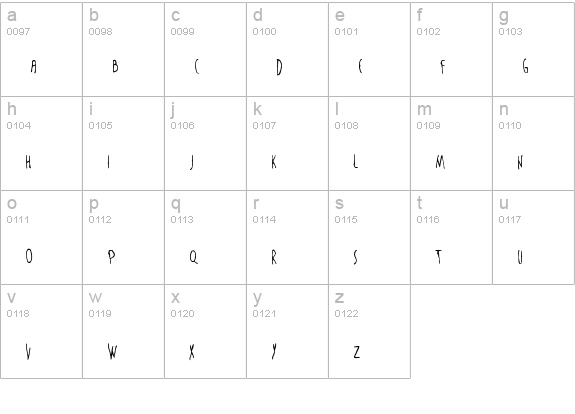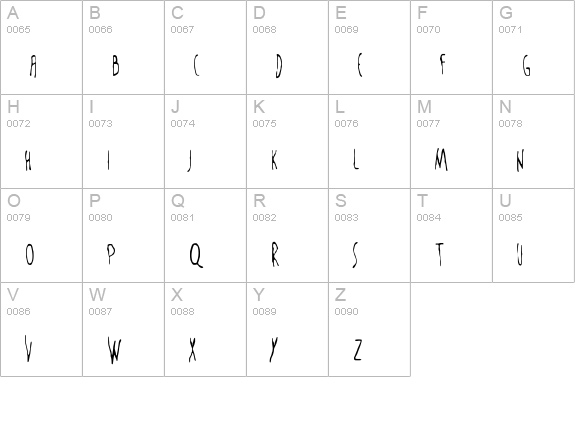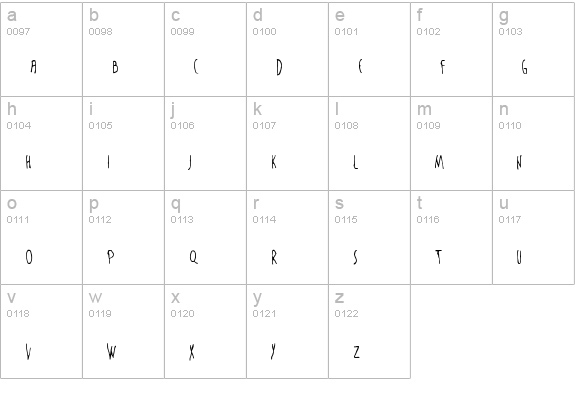
The Sixth Sense Font Details
The Sixth Sense font is an exquisite typeface that effortlessly captures the essence of mystery and intrigue. With its delicate yet bold strokes, this font exhibits a unique balance between elegance and enigma. Its ethereal curves and sharp angles create a captivating visual experience, making it perfect for various design projects. This font's versatility knows no bounds, as it seamlessly adapts to any context, whether it be for a book cover, logo design, or even a movie poster. Its distinct style brings an otherworldly charm to any piece of text, leaving a lasting impression on the viewer. What sets The Sixth Sense font apart is the fact that it is freely available for download at FontsMarket.com. This means that designers, artists, and enthusiasts alike can access this remarkable font without any cost. It's an incredible opportunity to enhance your creations with a font that exudes a sense of mystique and allure. With The Sixth Sense font, you can unlock a world of endless possibilities and push the boundaries of your design projects. Whether you're aiming for an air of elegance, a touch of suspense, or a hint of the supernatural, this font will undoubtedly help you achieve your vision. Download The Sixth Sense font from FontsMarket.com now, and let your creativity soar with this captivating and free typeface.